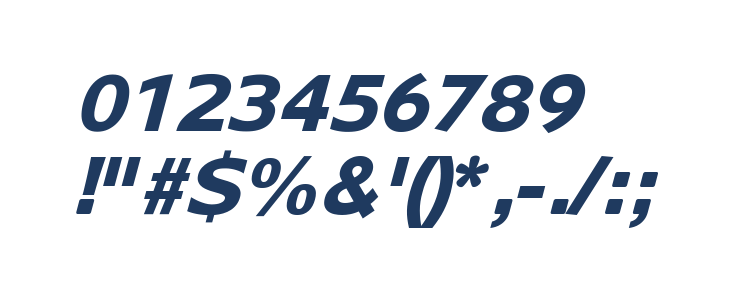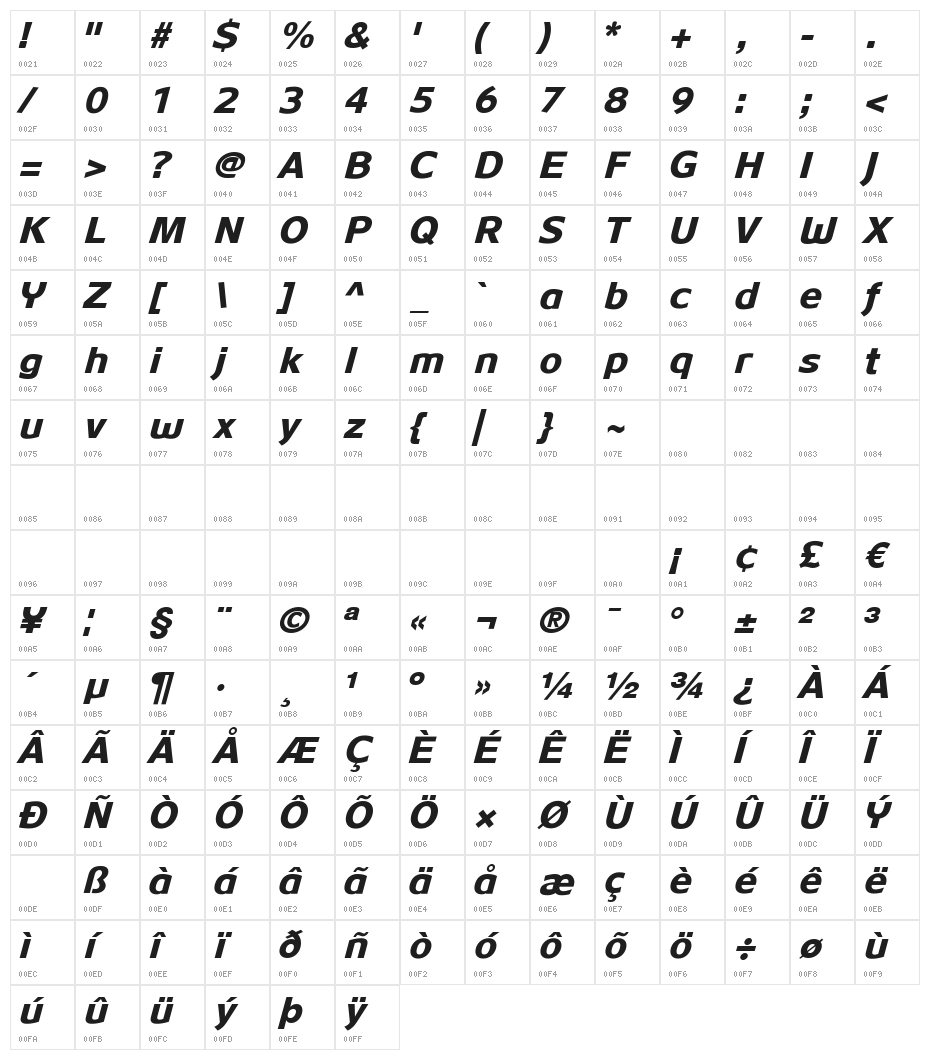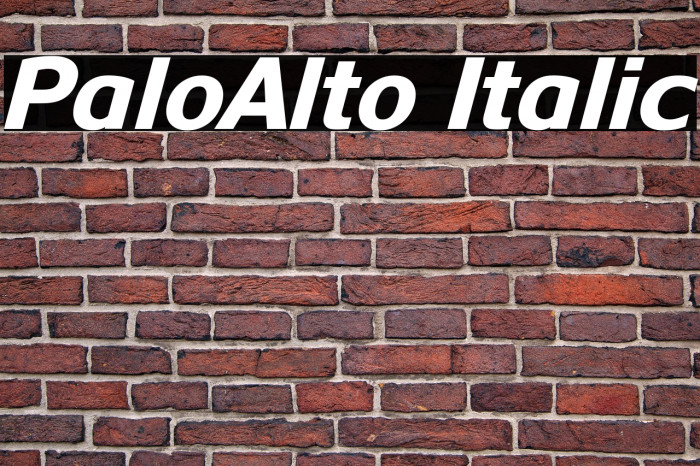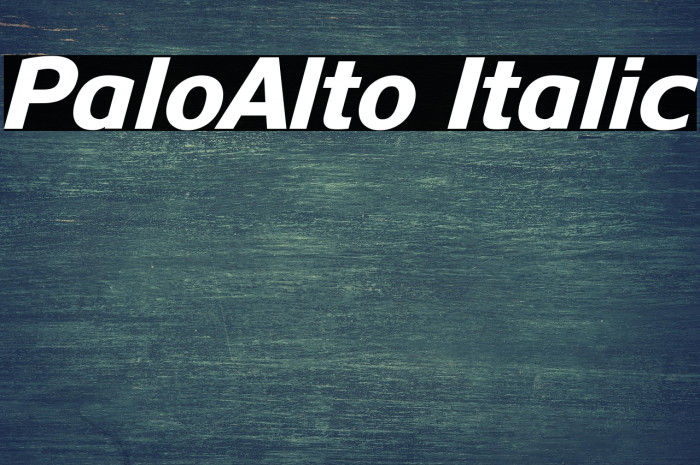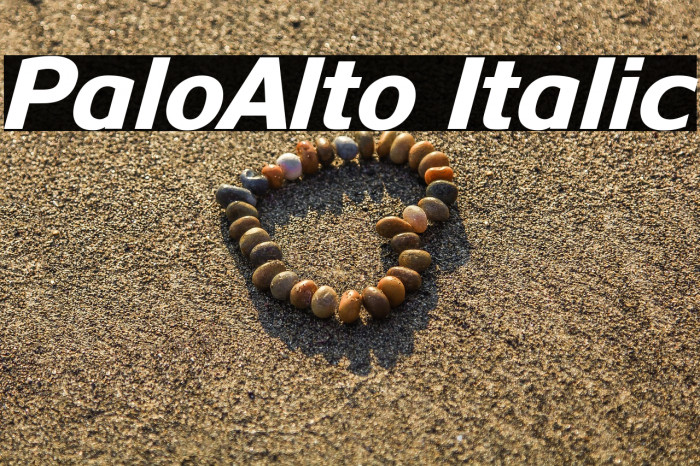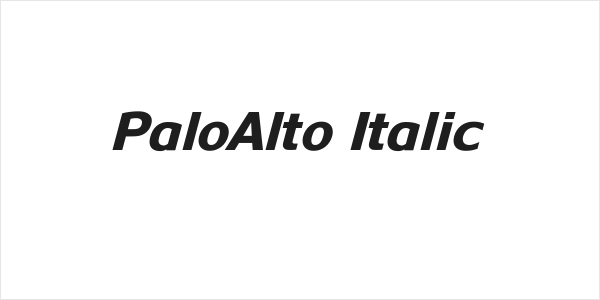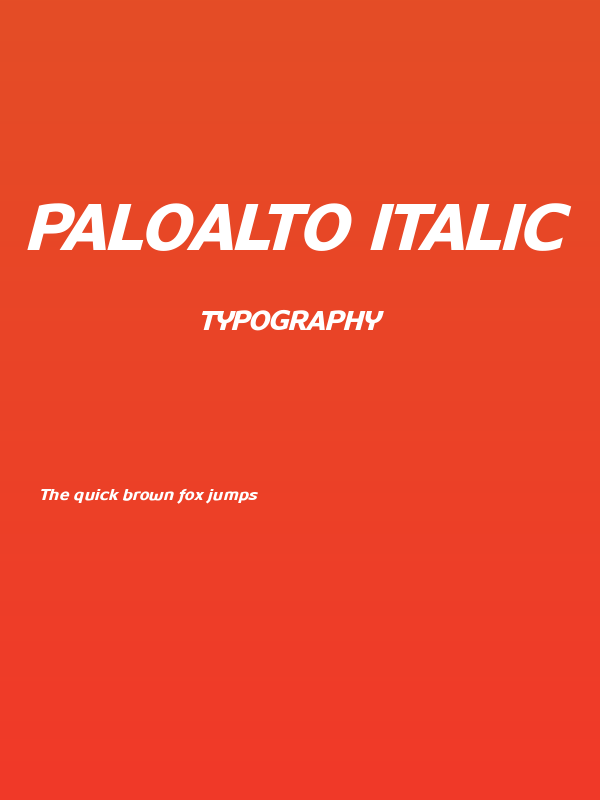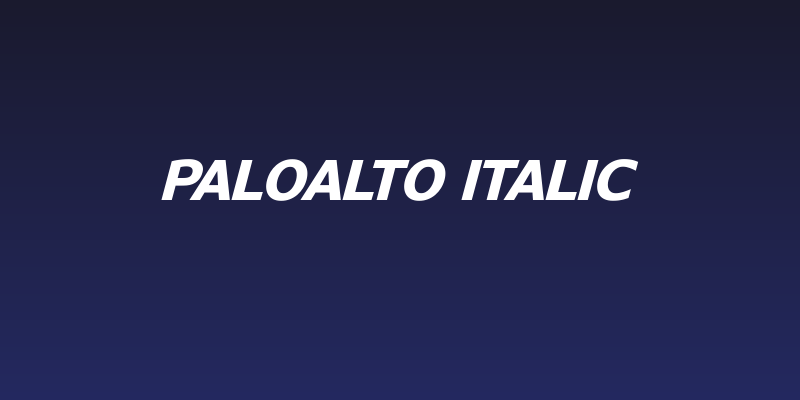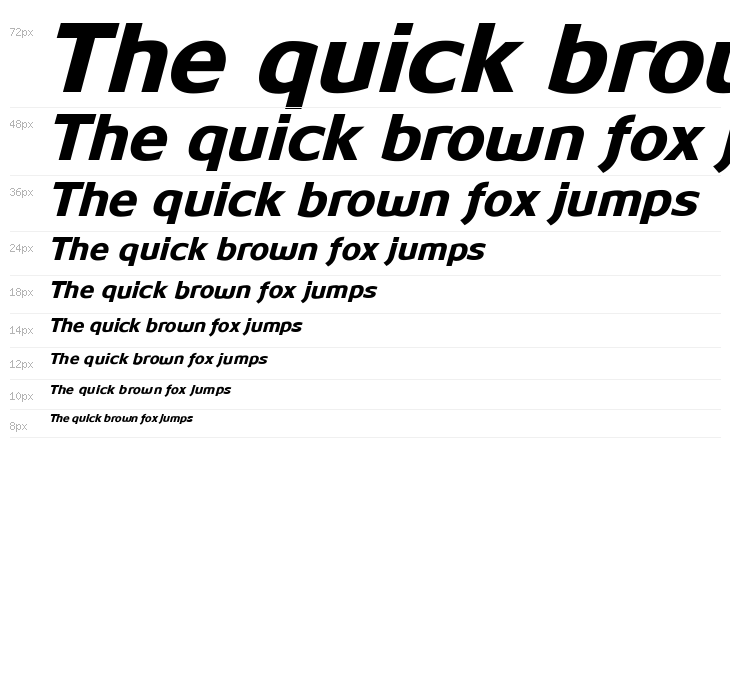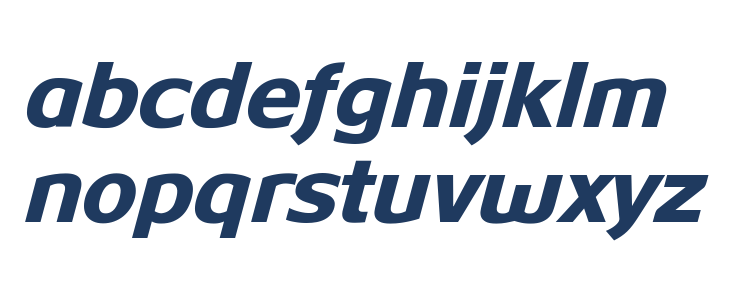
PaloAlto Italic Font
PaloAlto Italic Description
This font exhibits a sleek and modern design with a distinct italic slant, giving it a dynamic and forward-moving appearance. The characters are bold, with a consistent stroke weight that maintains readability while adding a touch of elegance. The sans-serif style ensures a clean and uncluttered look, making it suitable for various applications. The spacing between characters is normal, providing a balanced and harmonious text flow. The numerals and special characters are crafted with the same attention to detail, ensuring uniformity across all elements.
| Use Case | Headlines, Logos, Advertising |
| Proposed Projects | Ideal for branding, advertising, and editorial design where a modern and dynamic look is desired. |